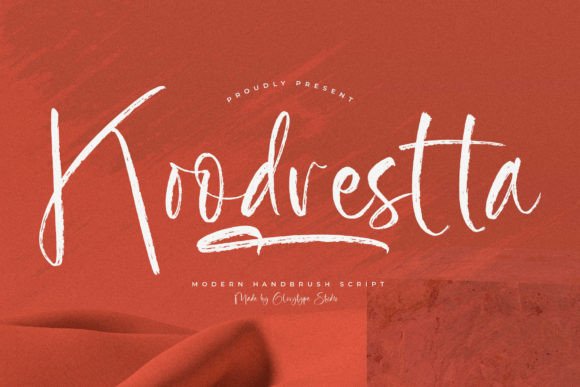
Unleash the beauty of your words with Koodrestta Font, a script typeface that dances across the digital canvas like a melody. Its delicate strokes and elegant curves are a testament to the artistry of Glorytype Studio, capturing the essence of musical expression in every letterform.
Koodrestta isn't just a font; it's an experience. Immerse yourself in its intricate details, where each glyph tells a story, each ligature a harmonious blend of notes. Let your creativity soar as you craft designs that resonate with rhythm and flow, transforming your projects into visual symphonies.
Picture a website dedicated to the art of music, where every element sings in unison. Koodrestta Font becomes the conductor, guiding the eyes of visitors through a captivating journey of sound and emotion. Its graceful lines weave through paragraphs like a gentle melody, drawing readers into a world where words and music intertwine.
Envision social media posts that come alive with Koodrestta's charm. Your messages dance off the screen, captivating audiences with their effortless elegance. Let your words take center stage, adorned in this stunning script that commands attention without overpowering.
Koodrestta Font isn't merely a font; it's an extension of your creative spirit. Its versatility knows no bounds, adapting seamlessly to a myriad of design endeavors. Whether you're crafting logos that resonate with personality or designing marketing materials that leave a lasting impression, Koodrestta becomes your trusted companion, elevating your work to new heights.
With Koodrestta Font, you gain access to a world of possibilities, where every project becomes a masterpiece. Its beauty and functionality unite, empowering you to create designs that resonate with audiences, leaving them mesmerized by the harmony of your creations.
Step into the realm of Koodrestta Font and let your imagination soar. Experience the magic of a font that transforms your designs into enchanting melodies, leaving a lasting impression on all who encounter it.